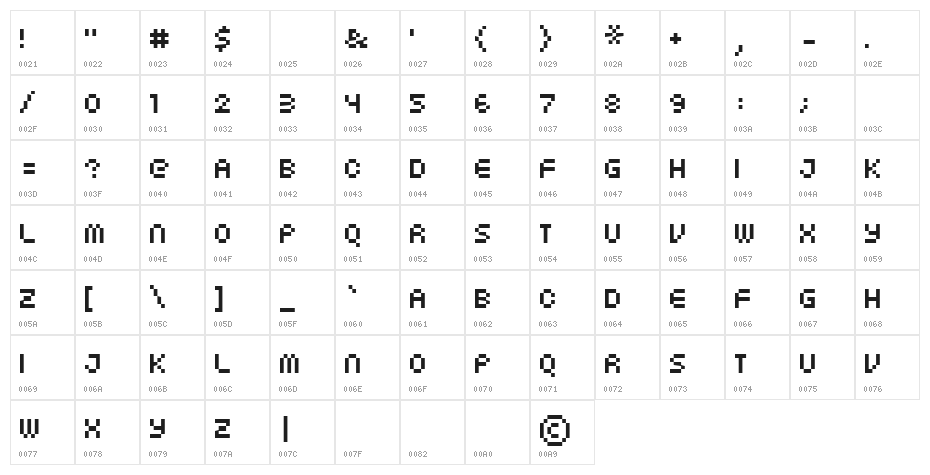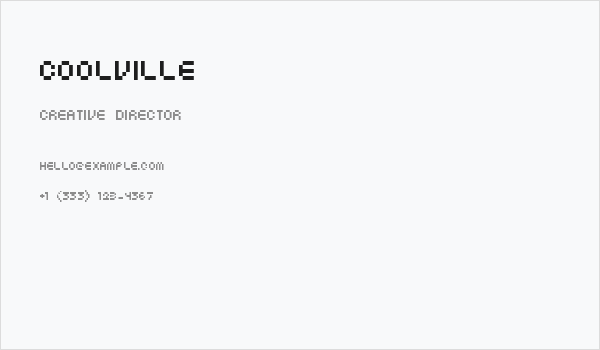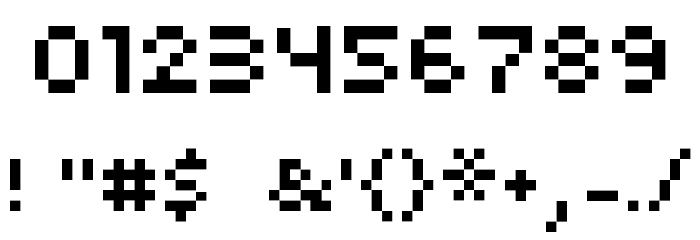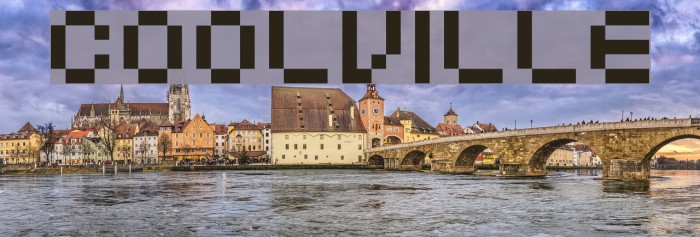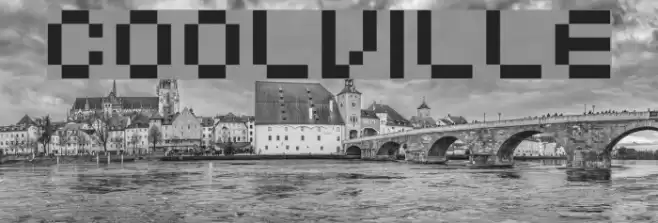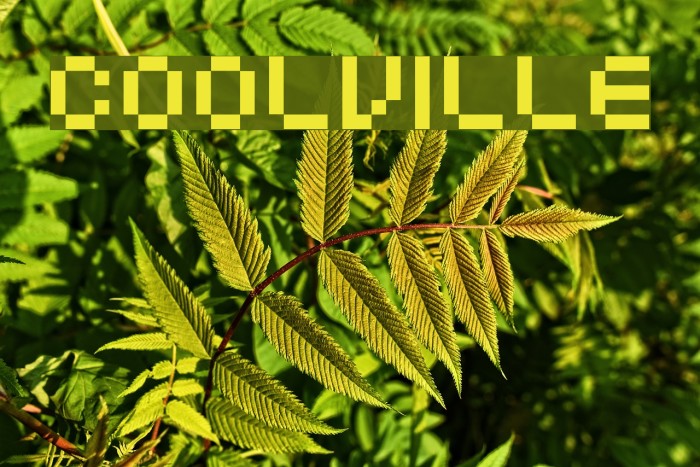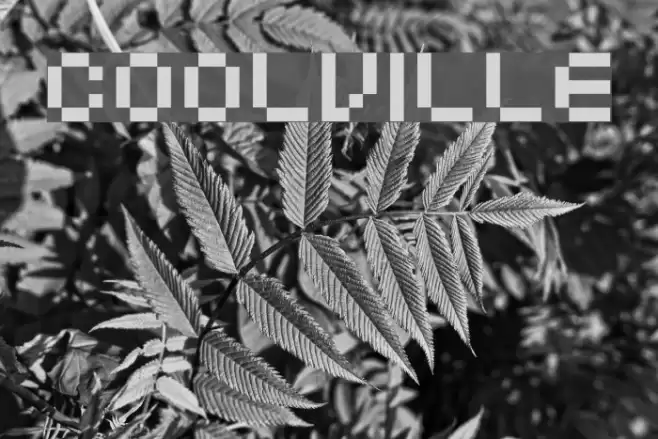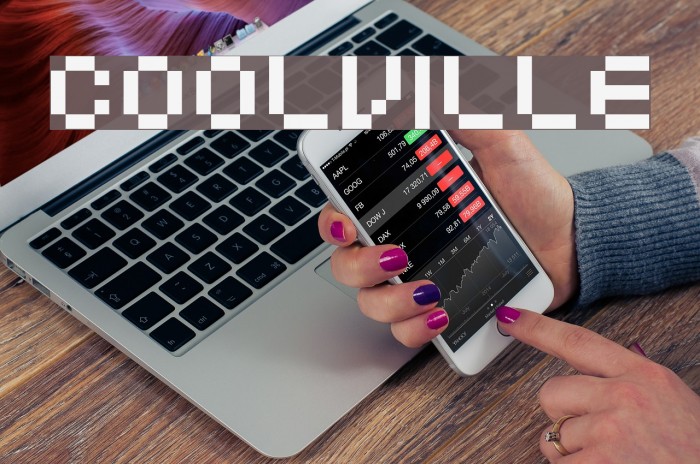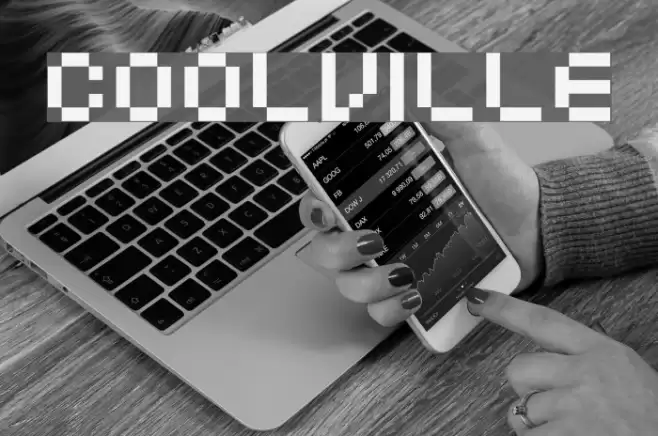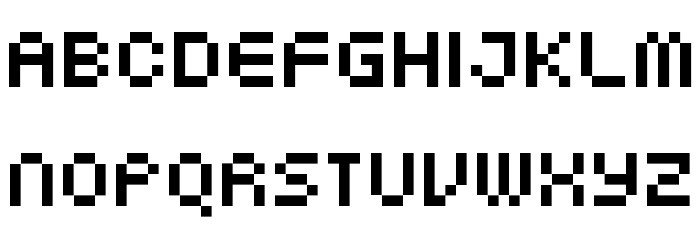
Coolville Font
Coolville Description
This font features a bold, pixelated style reminiscent of early digital displays and retro video games. Each character is constructed with a grid-like precision, giving it a blocky and geometric appearance. The uniformity in height and width across all characters creates a cohesive and structured look. The uppercase and lowercase letters maintain a consistent design, with slight variations to distinguish them. Numbers and special characters follow the same pixelated theme, ensuring visual harmony throughout. This font's nostalgic aesthetic is perfect for projects that aim to evoke a sense of vintage digital technology or retro gaming culture.
| Overall Style | Retro, Digital |
| Proposed Projects | Ideal for retro video game designs, digital art projects, tech-themed posters, or any creative work that seeks to capture a vintage digital vibe. |